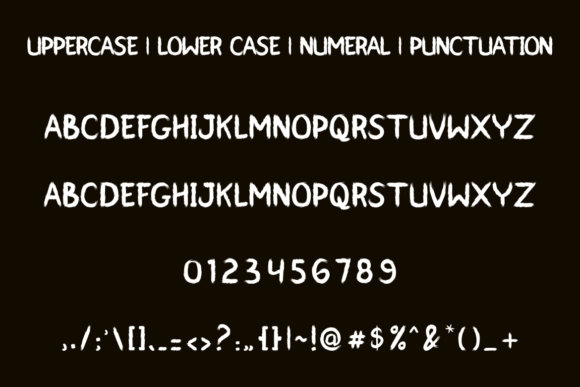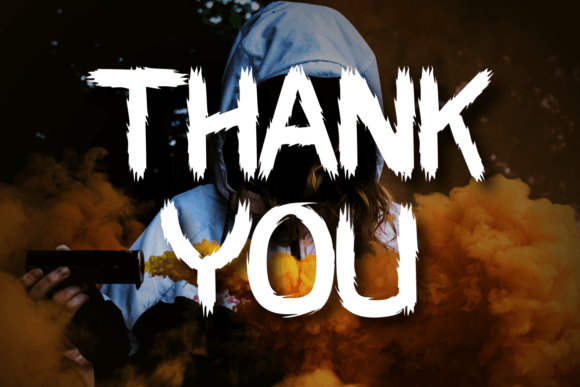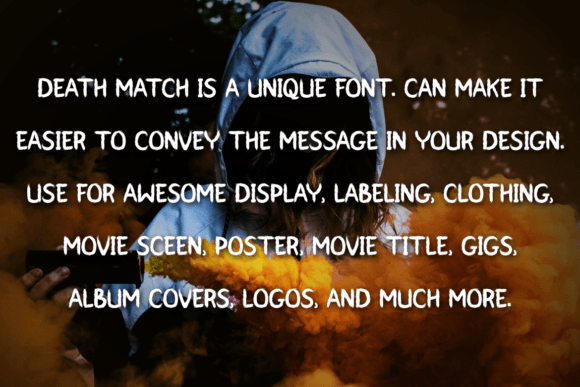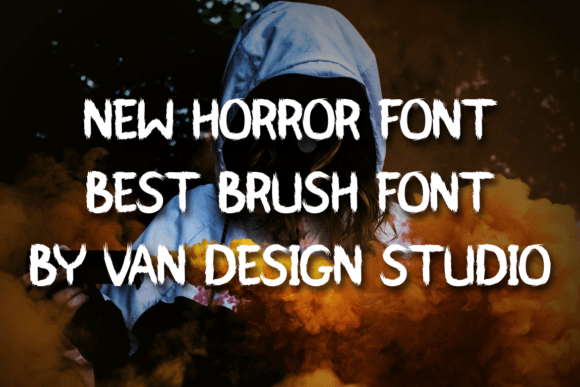
Unleash Your Creativity with Death Match Font: A Quirky and Versatile Display Font
Are you tired of using the same old fonts for your designs? Look no further than Death Match Font, a unique and interesting brush display font that’s sure to add a touch of quirkiness to your projects. With its distinctive style, Death Match Font is incredibly adept at standing out in a wide variety of contexts, making it a must-have for designers and crafters looking to add some personality to their work.
What Makes Death Match Font So Special?
Death Match Font is a one-of-a-kind font that’s been carefully crafted to bring a touch of whimsy and playfulness to your designs. Its unique brush-stroked style gives it a hand-crafted feel that’s perfect for creating eye-catching headlines, titles, and other display text. Whether you’re working on a logo, a poster, or a social media graphic, Death Match Font is sure to make your design stand out from the crowd.
Key Features of Death Match Font
- Unique Brush Display Style: Death Match Font features a distinctive brush-stroked style that’s perfect for creating eye-catching display text.
- Quirky and Playful: This font has a quirky and playful personality that’s sure to add a touch of whimsy to your designs.
- Highly Versatile: Death Match Font is incredibly adept at standing out in a wide variety of contexts, making it perfect for use in a range of design projects.
Death Match Font is a must-have for designers and crafters looking to add some personality to their work. Whether you’re a professional designer or a hobbyist crafter, this font is sure to inspire your creativity and help you create unique and eye-catching designs. From logos and posters to social media graphics and craft projects, Death Match Font is the perfect choice for anyone looking to add a touch of quirkiness to their designs.
- Use it as a Headline Font: Death Match Font is perfect for use as a headline font, adding a touch of quirkiness and personality to your titles and headings.
- Experiment with Different Colors: This font looks great in a range of colors, so don’t be afraid to experiment and find the perfect color to match your brand or design.
- Pair it with Other Fonts: Death Match Font pairs well with a range of other fonts, so try pairing it with a sans-serif font for a bold and eye-catching look.
Death Match Font is a unique and interesting brush display font that’s sure to add a touch of quirkiness to your designs. With its distinctive style and highly versatile nature, this font is perfect for use in a wide range of design projects. Whether you’re a professional designer or a hobbyist crafter, Death Match Font is a must-have for anyone looking to add some personality to their work. So why wait? Download Death Match Font today and start unleashing your creativity!